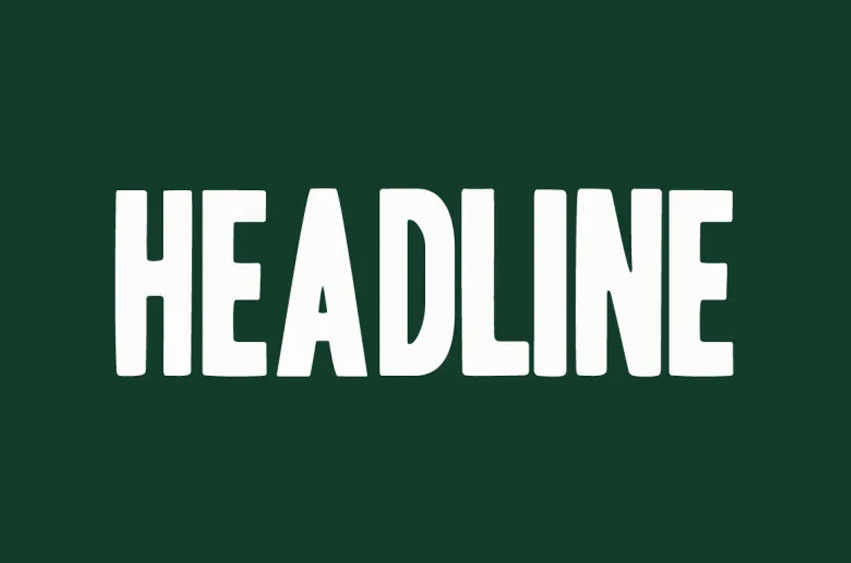
Headline Sans Font
Headline Sans Font is a high quality sans serif font that is designed by HPLHS Prop Fonts and is available for free download and personal use.
The free version provides all uppercase and lowercase letters and a few special characters too.